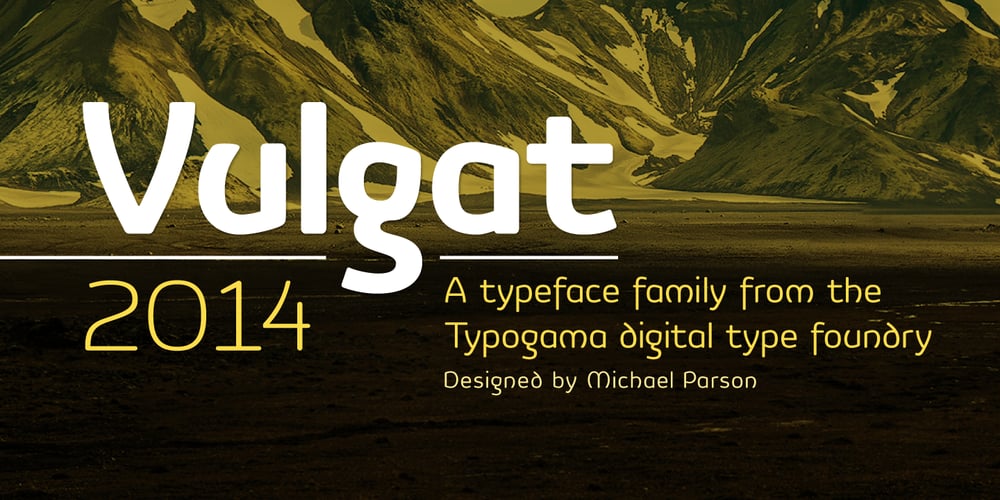
Vulgat
Vulgat font
Vulgat Font Family was designed by published by Typogama. Vulgat contains 6 styles and family package options. Vulgat is a uncial inspired typeface that offers a vibrant personality while staying clear and legible in all applications, a contemporary style modeled by the past. Designed for use in editorial and branding situations, Vulgat can be used for titles but equally longer passages of text. This typeface features an extended Latin support for all European languages plus Cyrillic support.